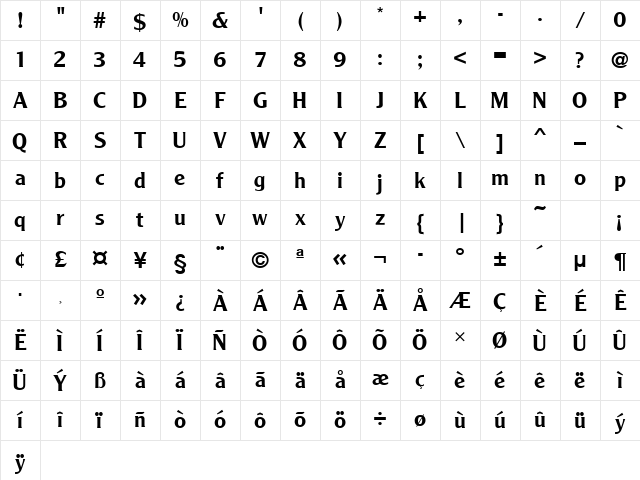
AgendaURWTLig Regular
Design Context for AgendaURWTLig
AgendaURWTLig is a composed and adaptable typeface that performs quietly and consistently across a wide range of design contexts.